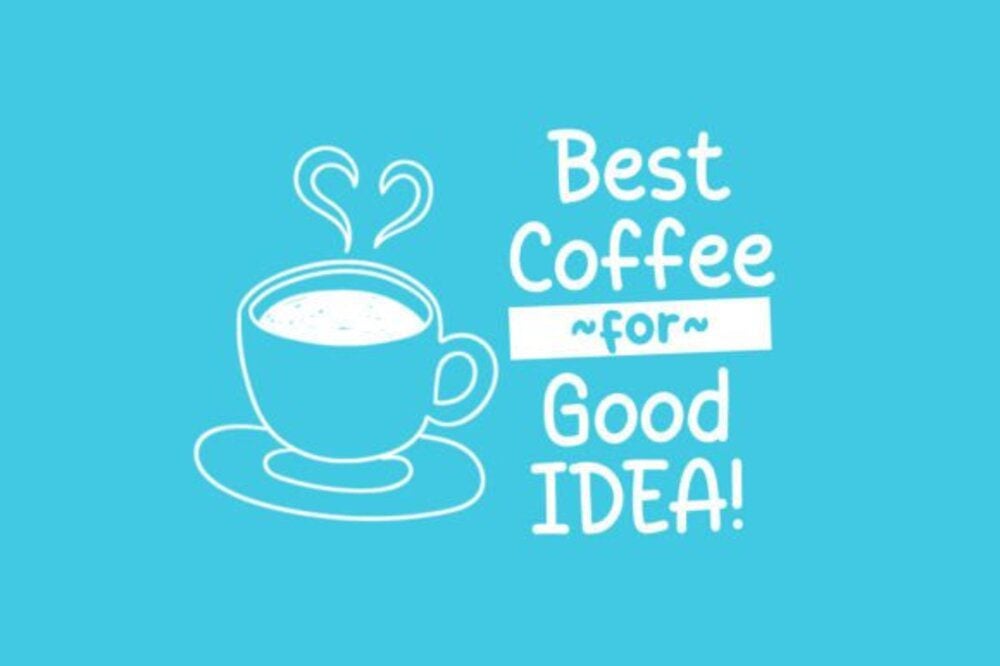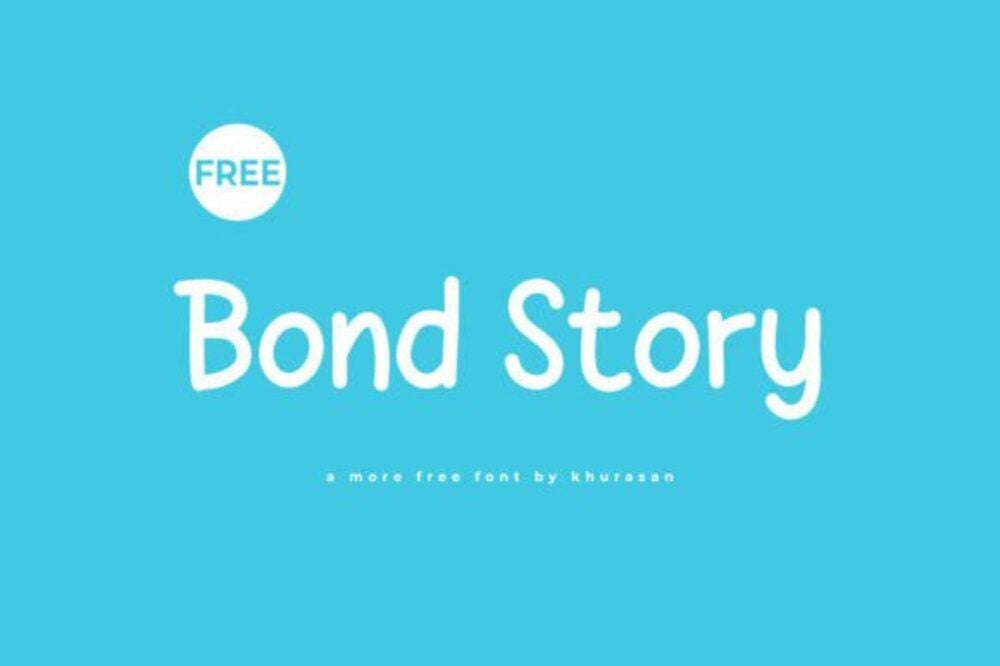
Bond Story Font
Bond Story Font exudes elegance and intrigue with its bold, sophisticated design inspired by classic spy themes. Featuring sharp edges and sleek curves, it combines modern aesthetics with a timeless appeal. Perfect for movie posters, book covers, branding, or invitations, Bond Story adds an air of mystery and sophistication to any project, making your designs unforgettable and captivating.